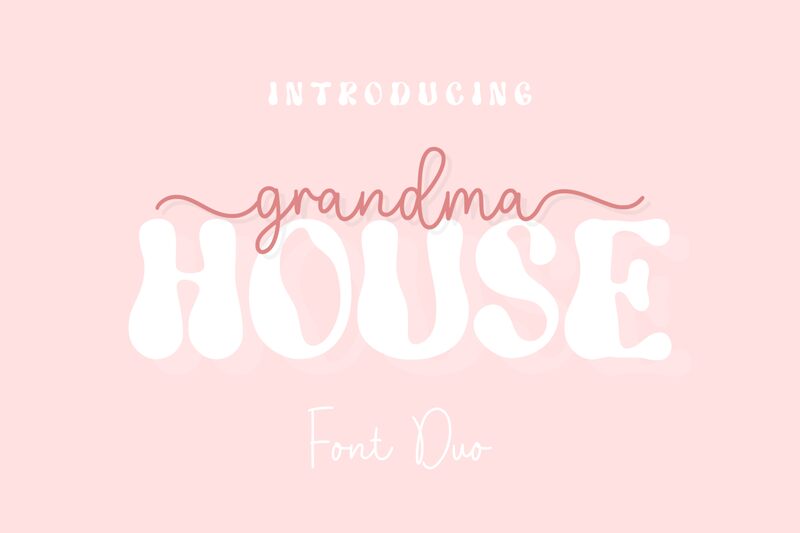
GrandmaHouse font by MaqsumKS offers a charming handwritten style that captures a sense of warmth and nostalgia. With its delicate light font, GrandmaHouse evokes the feel of personal, thoughtful correspondence. This free font embodies an inviting aesthetic perfect for adding a personal touch to various design projects. Its flowing, organic strokes make it an ideal choice for crafting wedding invitations, greeting cards, and lifestyle blogs that seek to convey authenticity and intimacy.